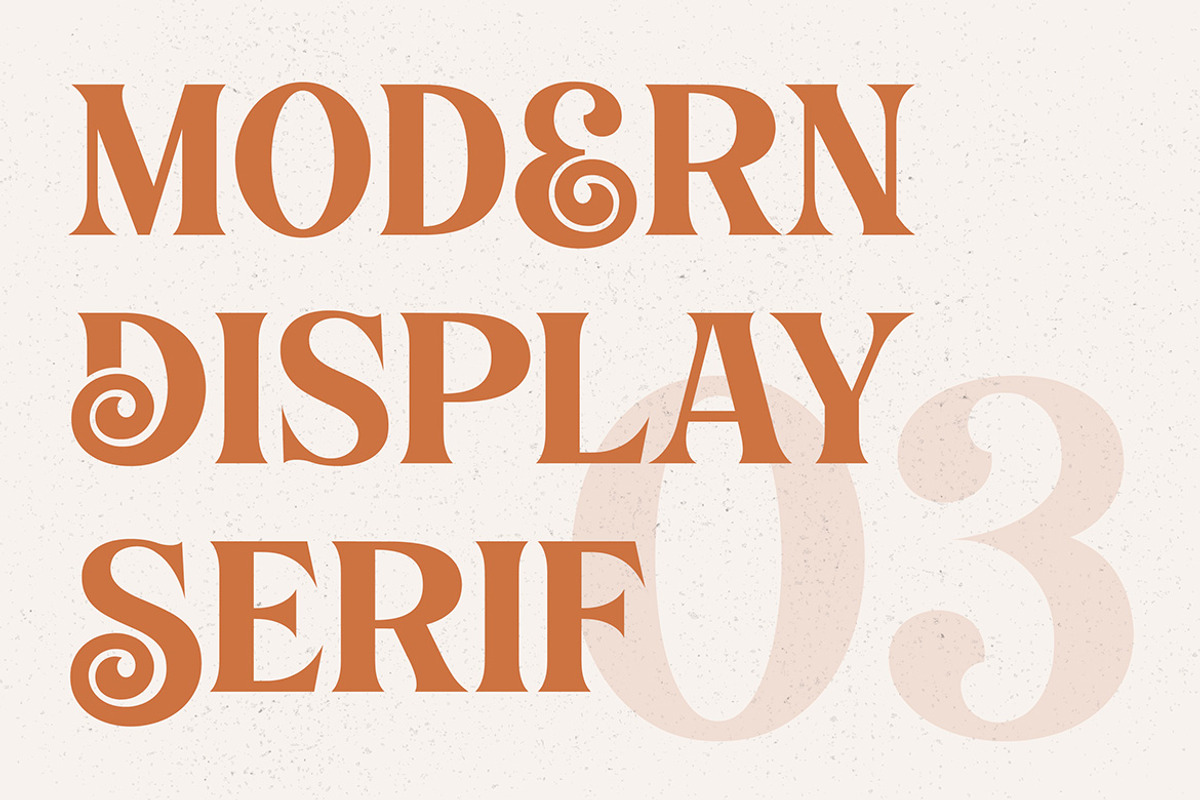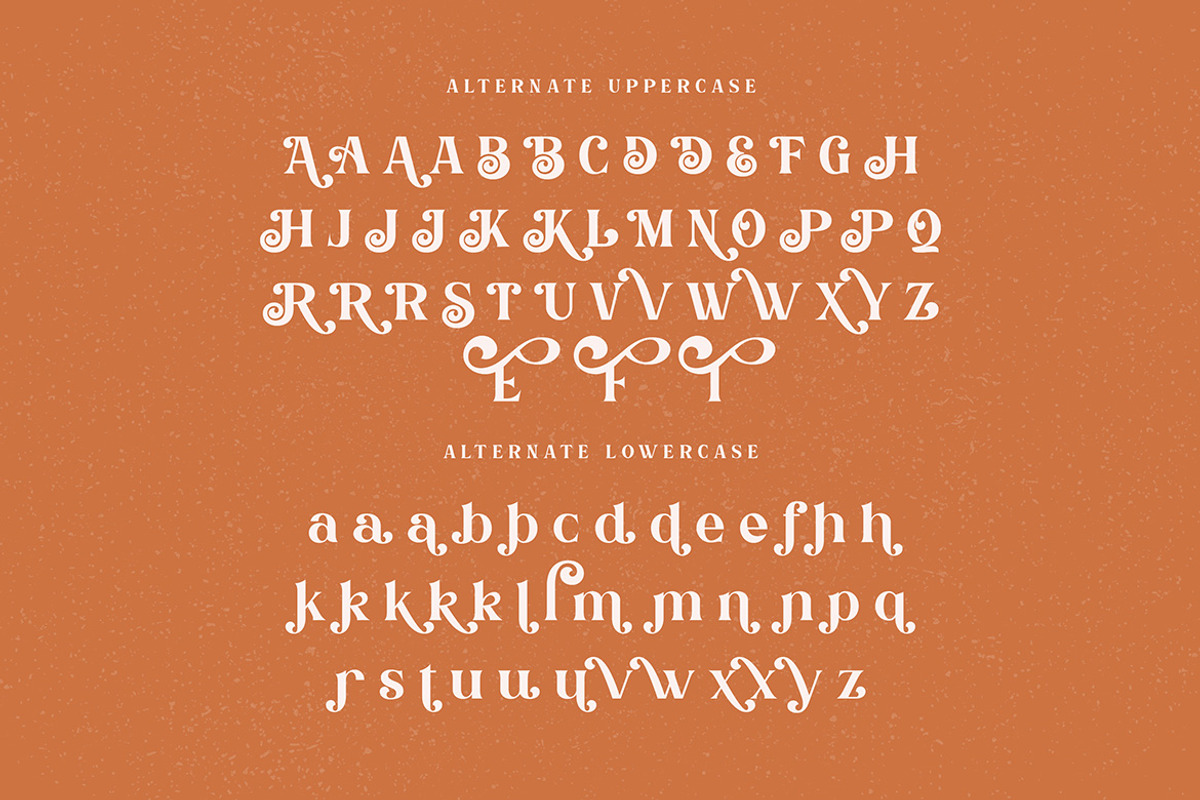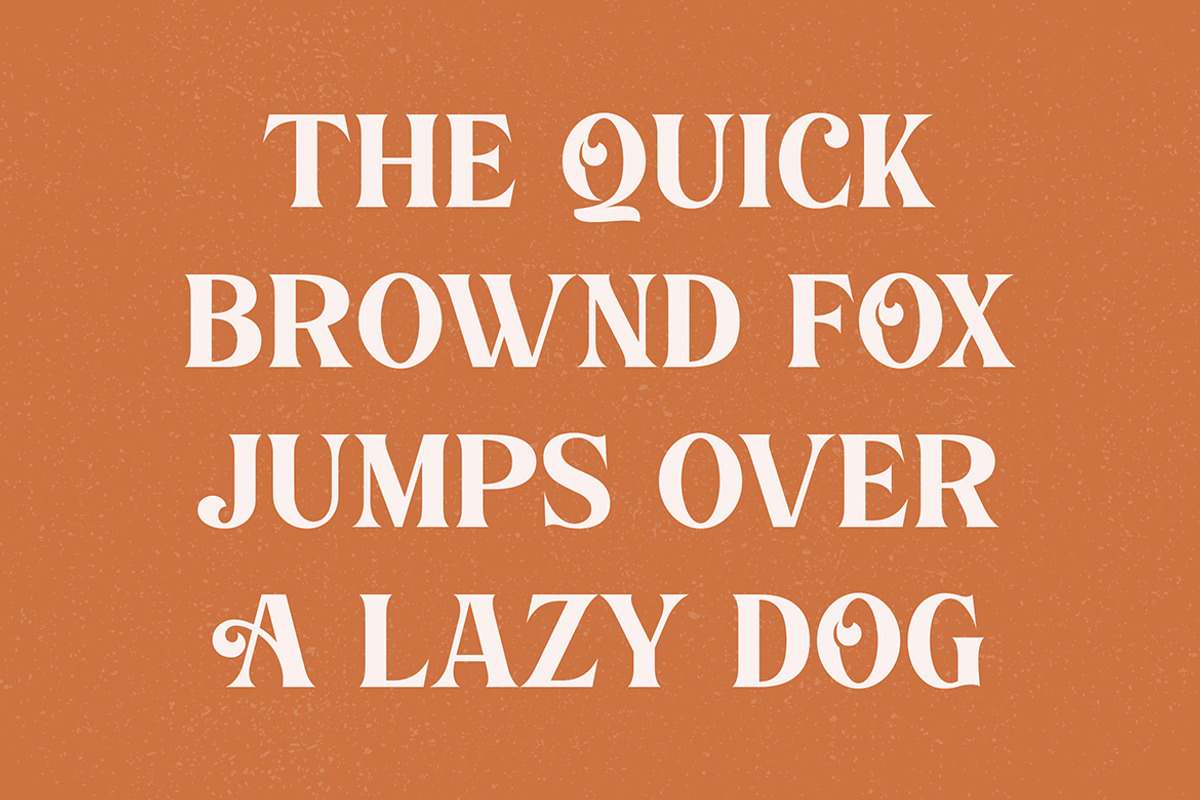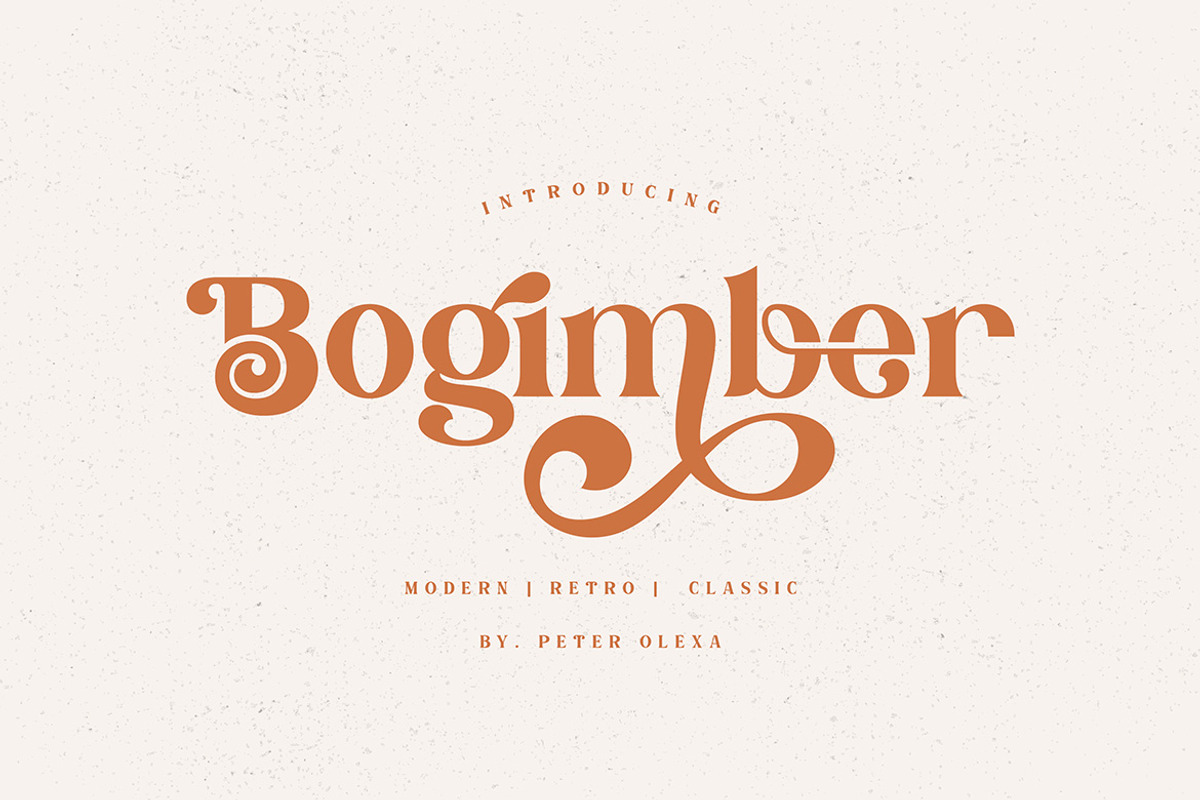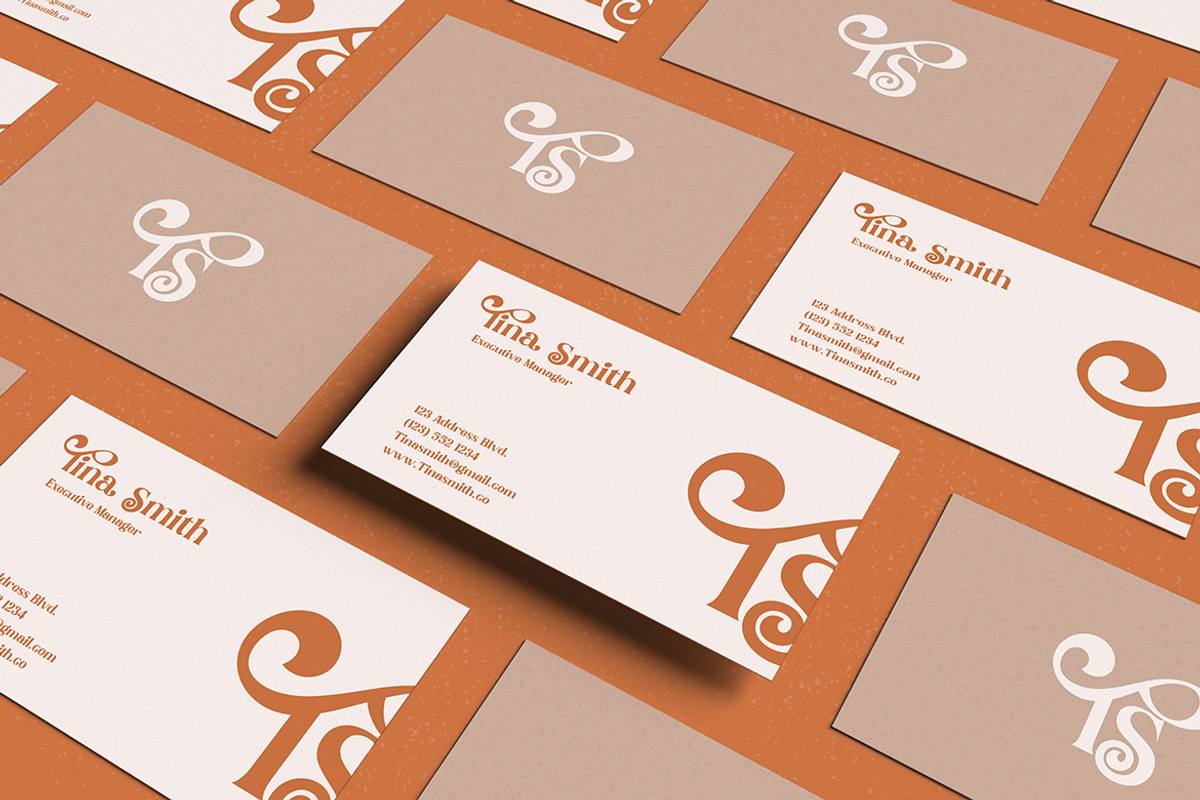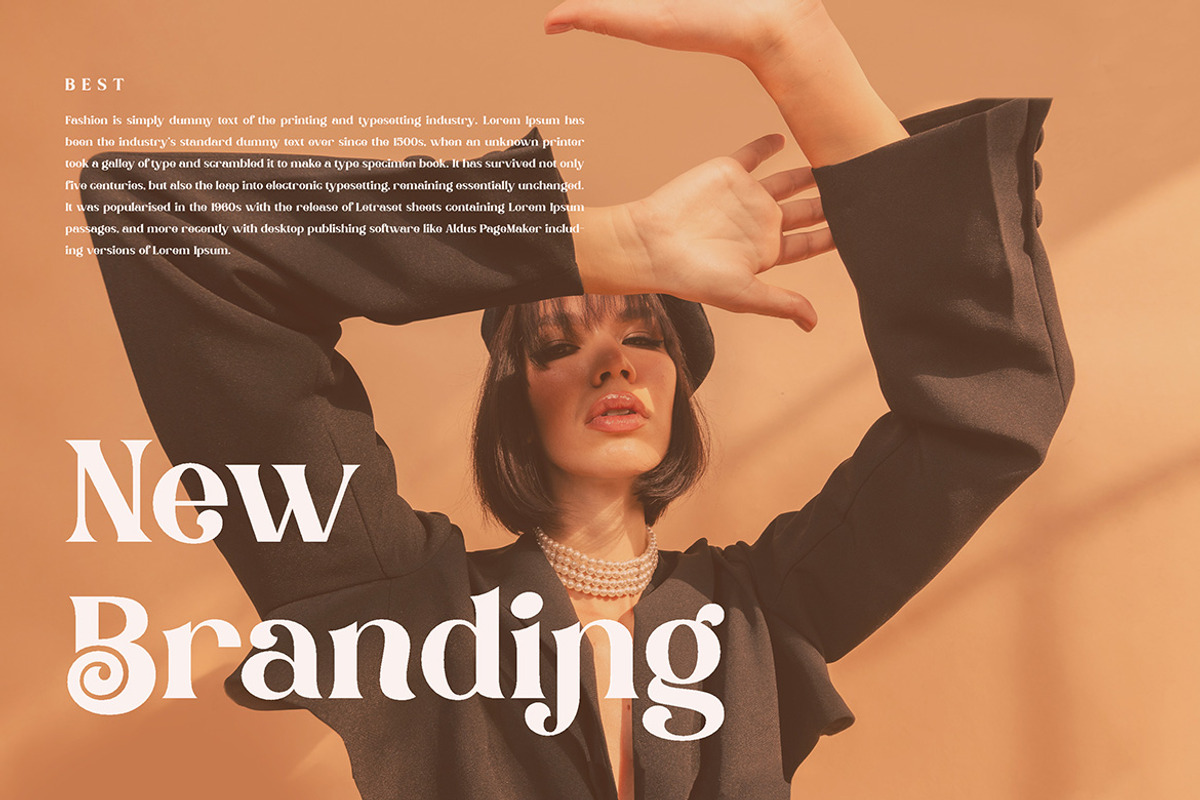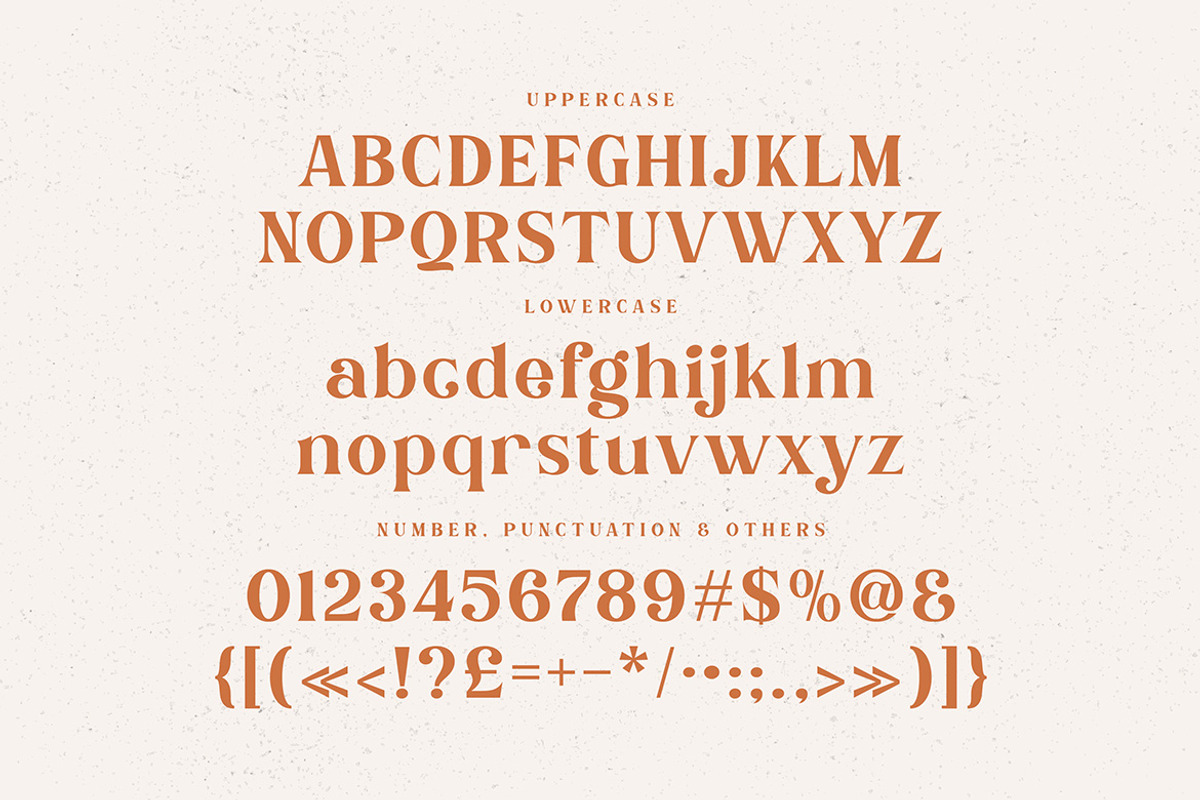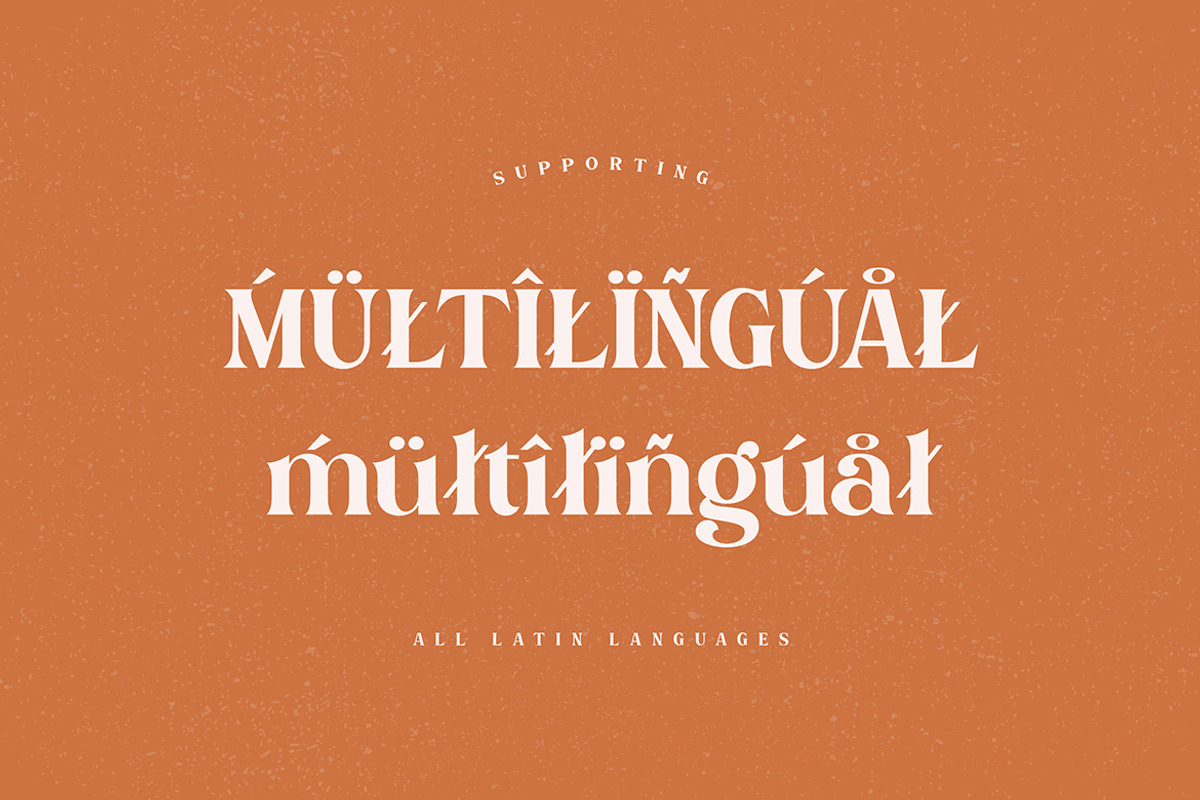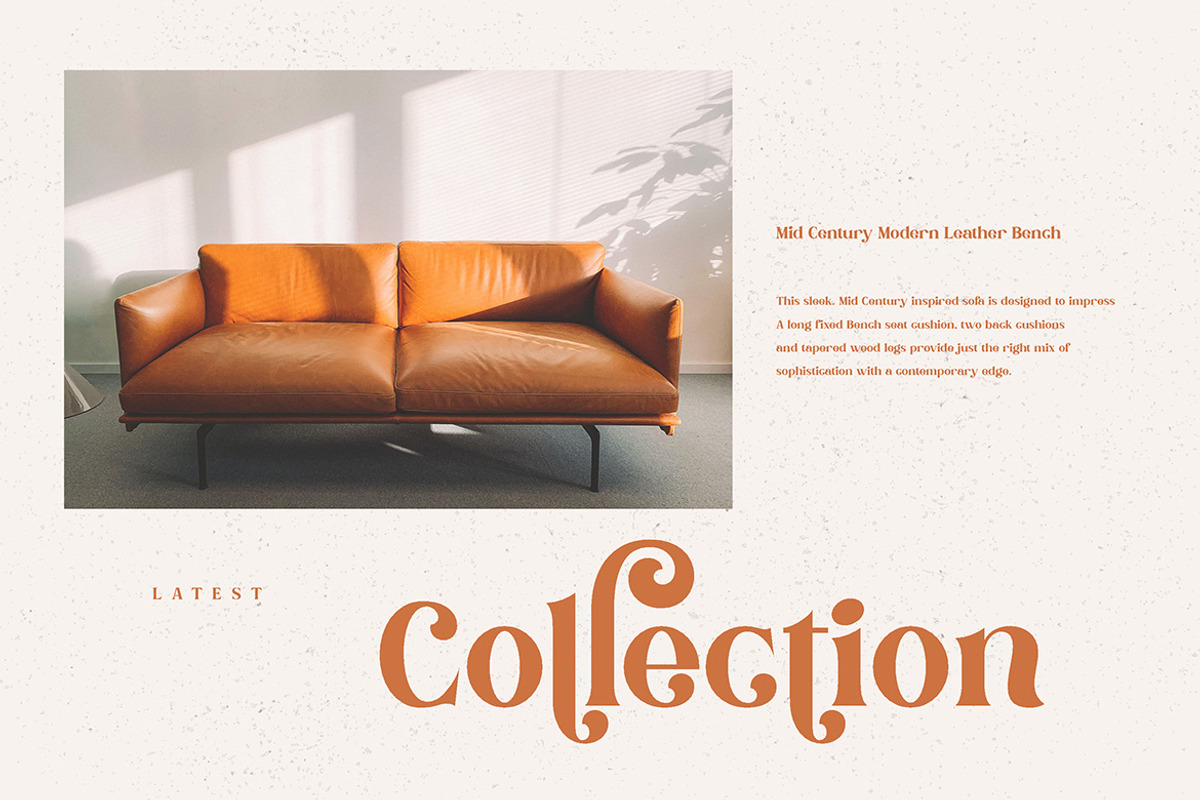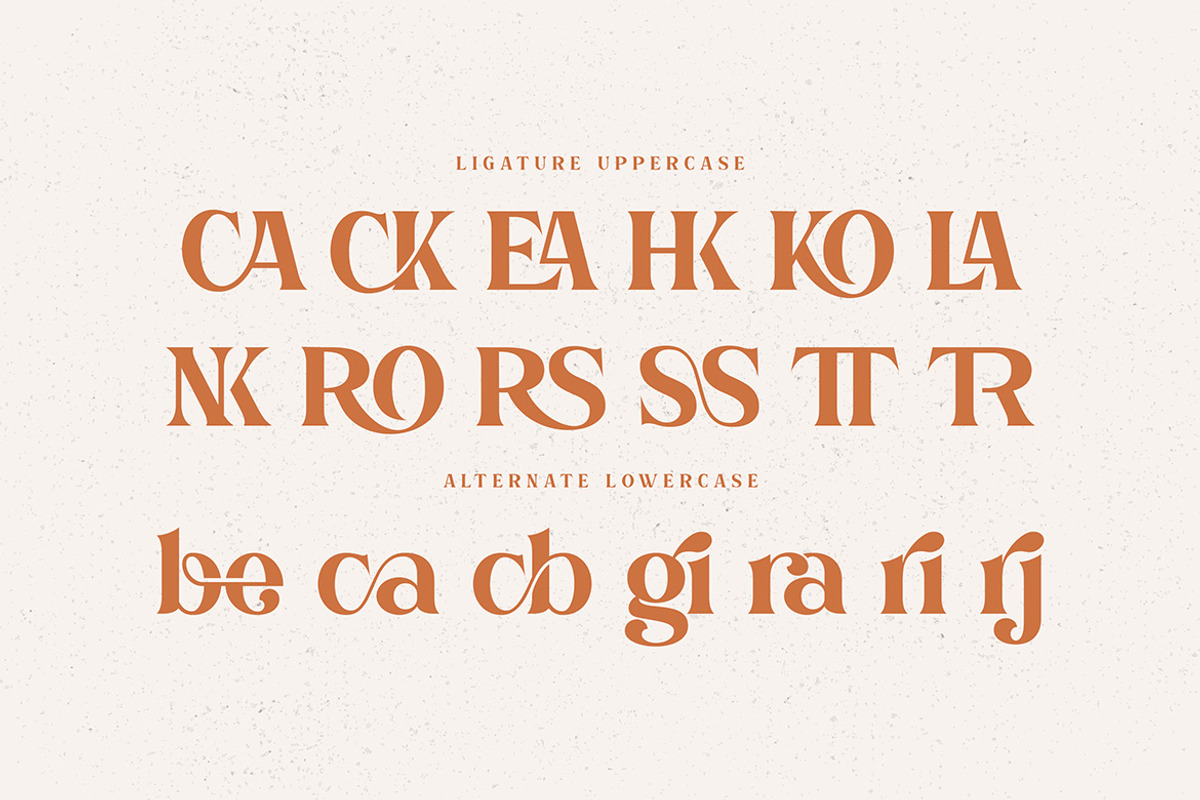
Bogimber - Retro Display Serif
Trendy, elegant, artistic, luxury, retro & modern style serif font for your fancy projects. Elegant, fashion and playful style on Bogimber font will be great for any branding project. Lot of alternates and ligatures will help you to create unique and original logo design or website header! Enjoy :)
- Lot of alternate characters
- Lot of ligatures
- Great for modern branding projects!